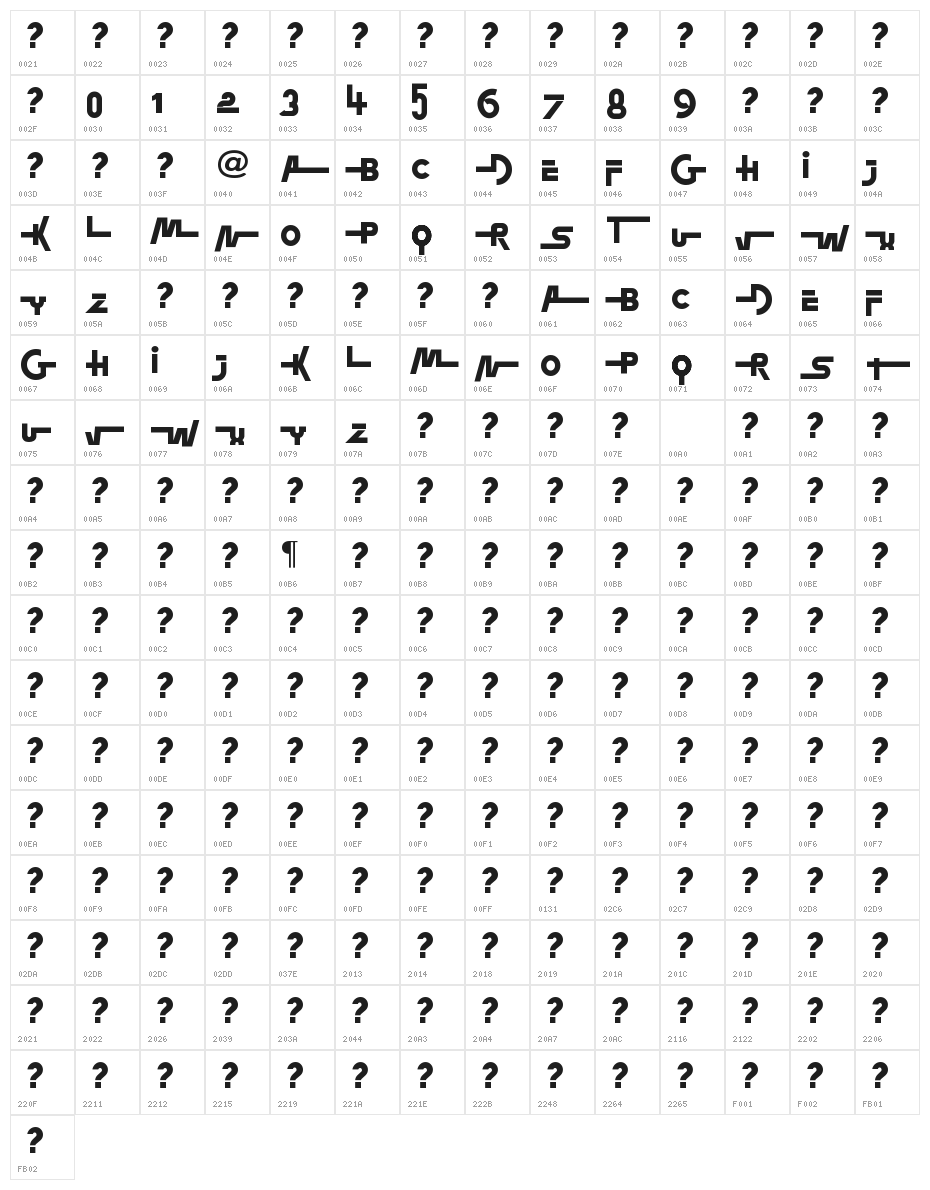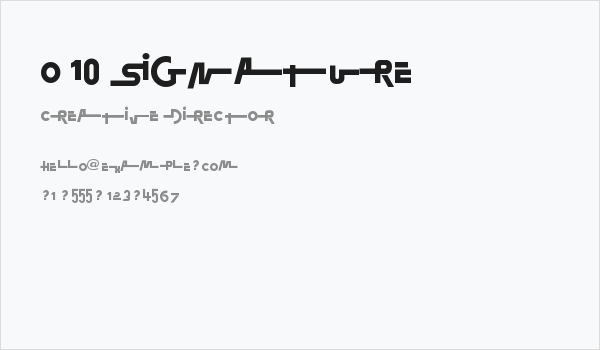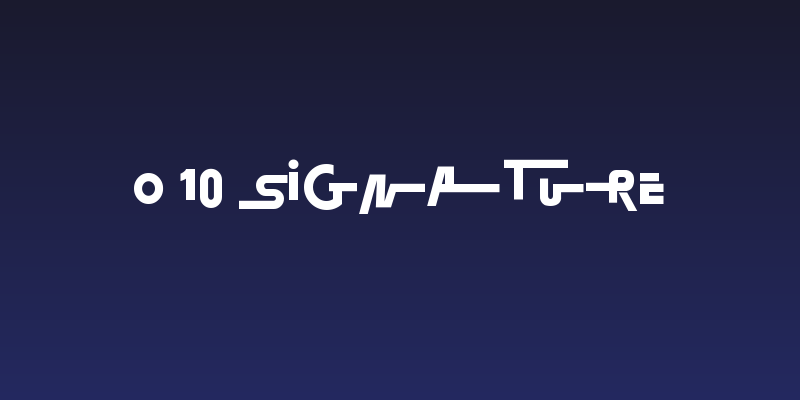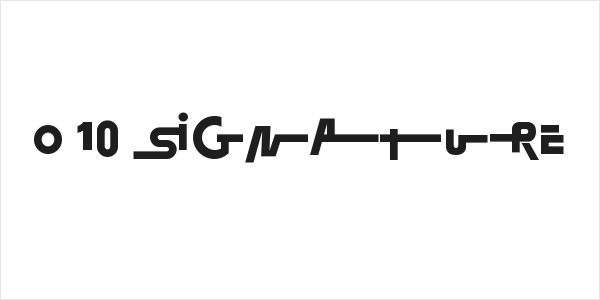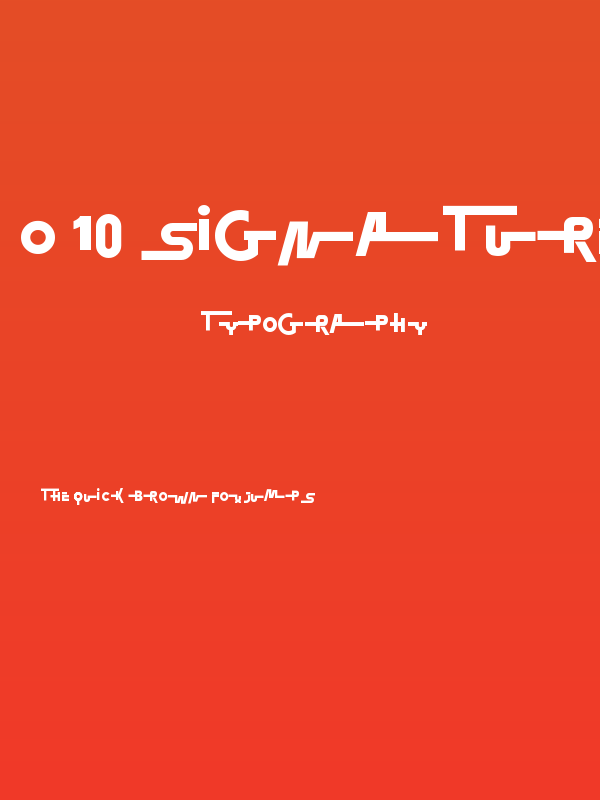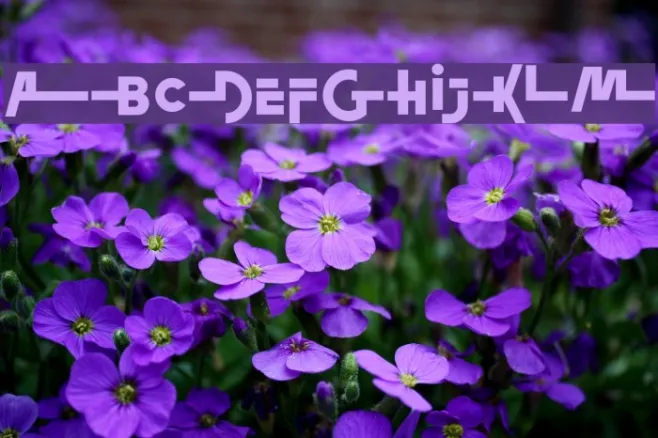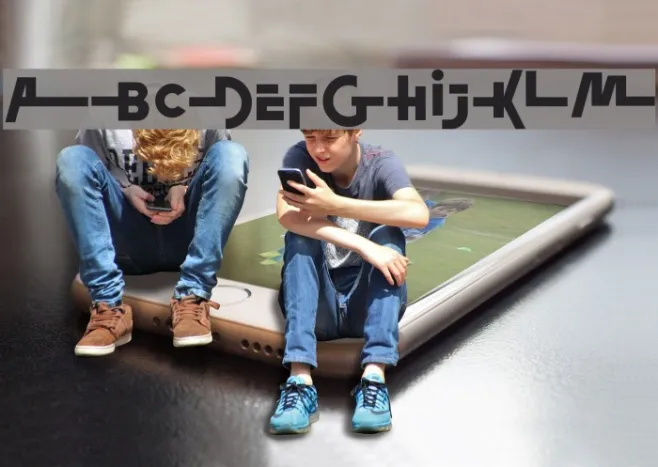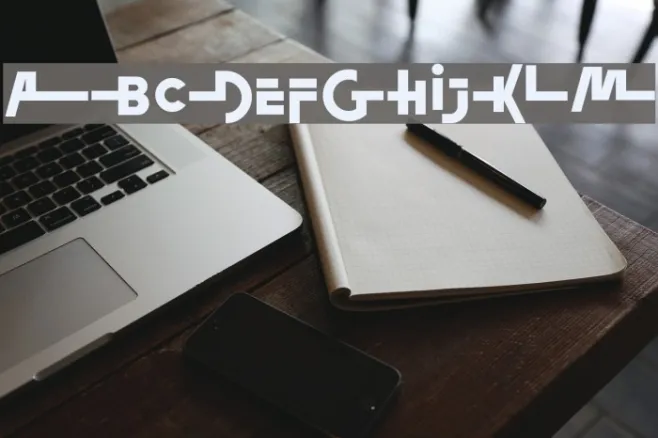
O 10 Signature Font
O 10 Signature Description
This font features a bold and geometric design with a futuristic flair. Each character is constructed with a combination of straight lines and sharp angles, giving it a mechanical and industrial appearance. The uppercase letters are particularly striking, with unique cutouts and extensions that add to the font's distinctiveness. The lowercase letters maintain a consistent style, ensuring readability while preserving the overall aesthetic. Numbers are bold and clear, making them suitable for impactful displays. The special characters follow the same design principles, ensuring a cohesive look across all elements.